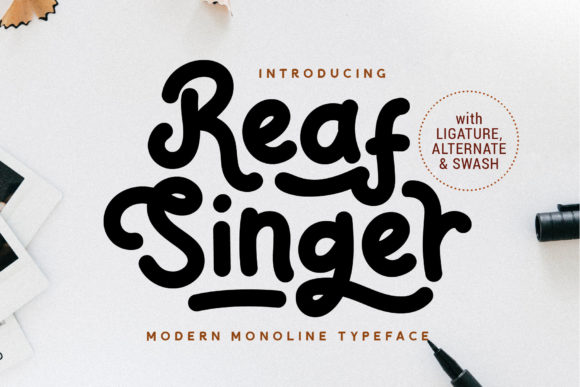
In this digital realm where aesthetics captivate and fonts speak louder than words, allow us to introduce you to Reaf Singer, a display font family that embodies style and allure. Crafted with utmost care by the artisans at Dicubit, Reaf Singer is a whimsical masterpiece that transforms your designs into captivating expressions of art.
Step into a world of delectable delights, where Reaf Singer's enchanting curves dance across food menus, posters, and flyers, tantalizing the taste buds and igniting culinary desires. Picture your customers' eyes gleaming with delight as they savor the visual feast presented by your culinary creations, enhanced by the charm of Reaf Singer.
Unleash your creative spirit and let Reaf Singer guide you through a journey of boundless possibilities. Its versatility knows no bounds, adapting seamlessly to various design projects, from eye-catching posters to captivating flyers, leaving a lasting impression on your audience.
Like a skilled performer gracing the stage, Reaf Singer commands attention, captivating onlookers with its graceful strokes and elegant flourishes. Let your designs take center stage, as Reaf Singer transforms them into captivating performances that resonate with your audience.
Embrace the boundless creativity that Reaf Singer unlocks, a font that empowers you to weave tales of enchantment, spark imaginations, and evoke emotions. Let your designs bloom with personality, capturing hearts and minds with their captivating allure.
Reaf Singer is more than just a font; it's an investment in visual excellence, a key to unlock a treasure chest of creative possibilities. Discover the power of Reaf Singer today and elevate your designs to new heights of beauty and engagement.